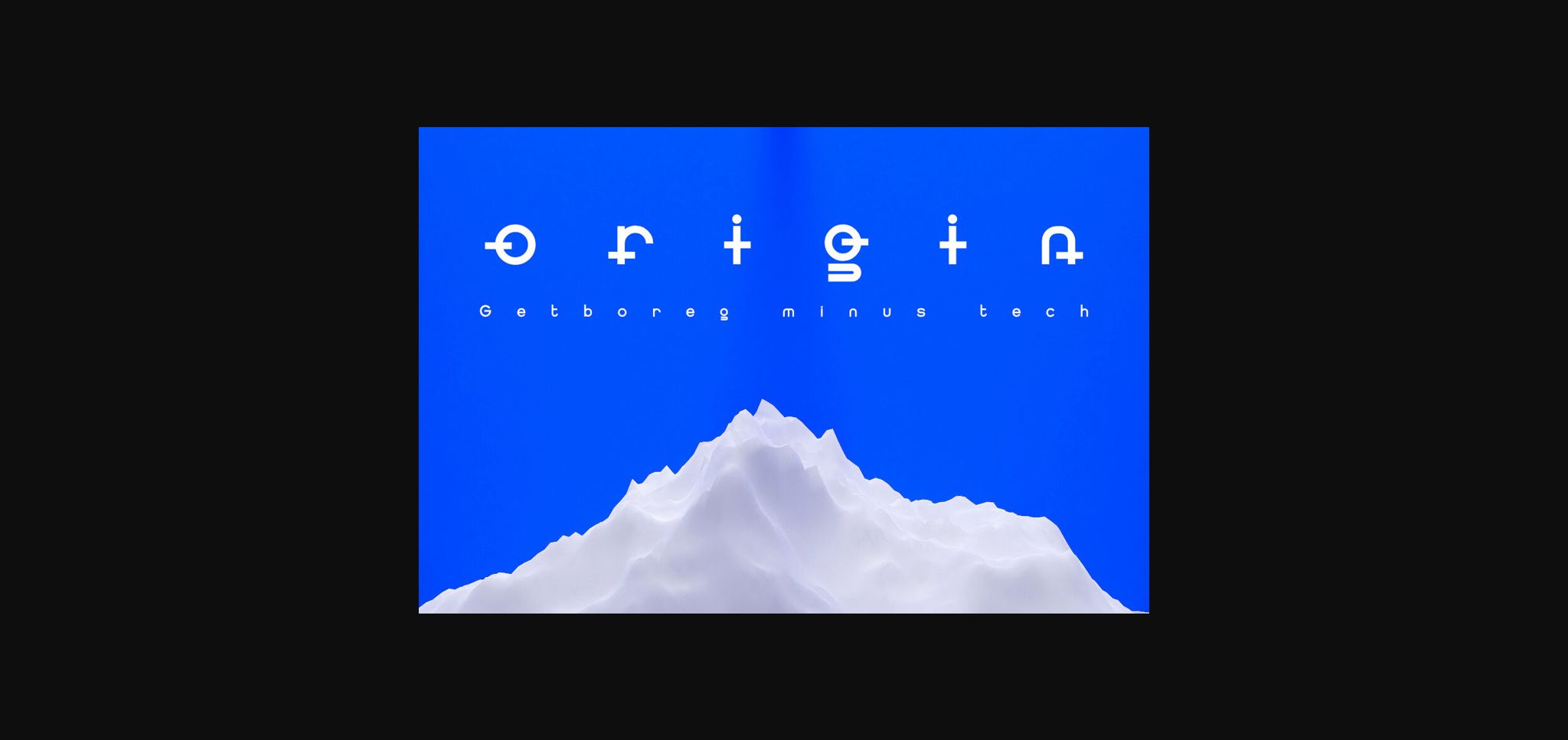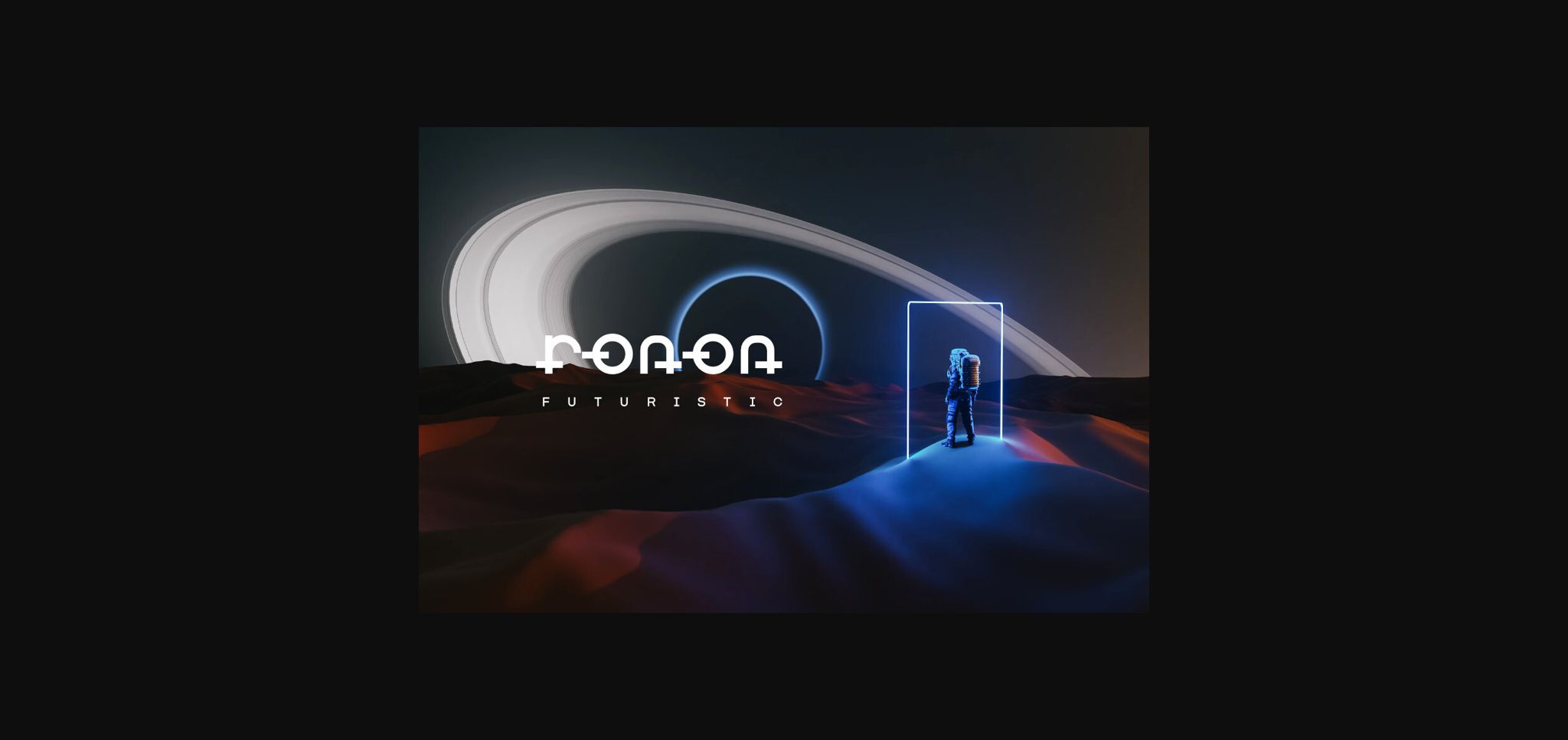
About Getboreg Minus Tech Font
Getboreg Minus Tech is a cutting-edge sans-serif font meticulously crafted for the tech-savvy generation. Immerse your designs in the seamless fusion of sleek minimalism and the captivating allure of glitch art.